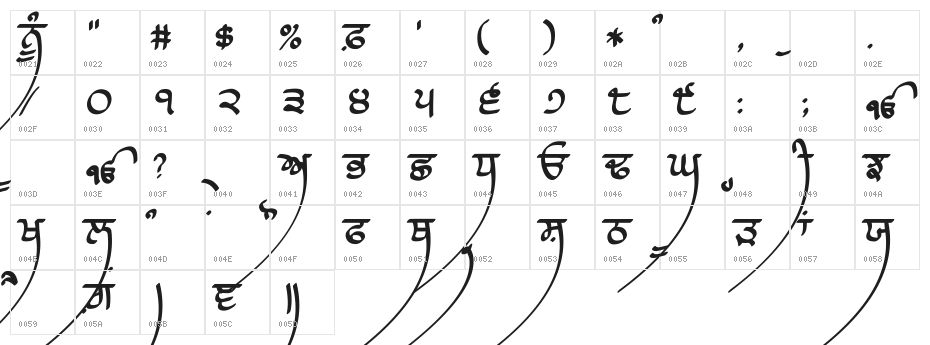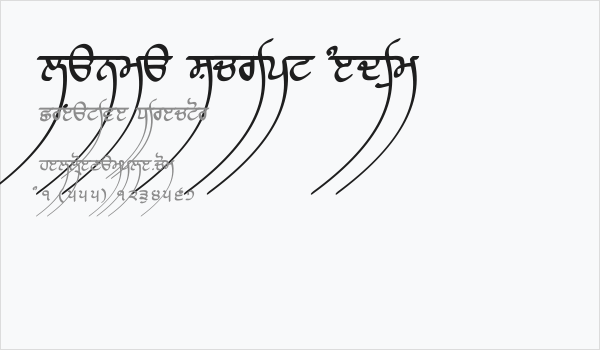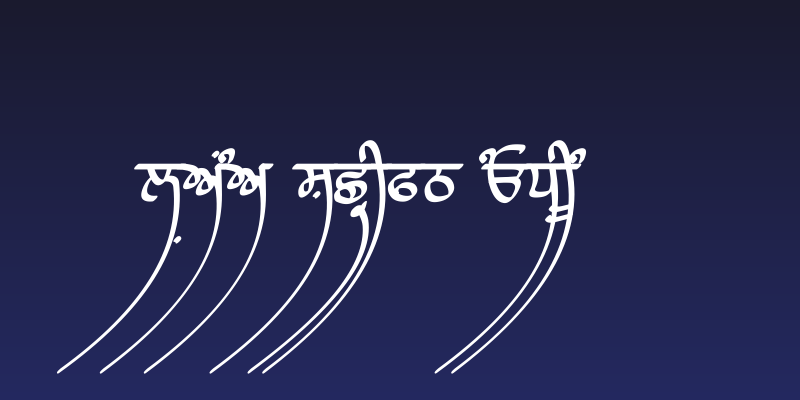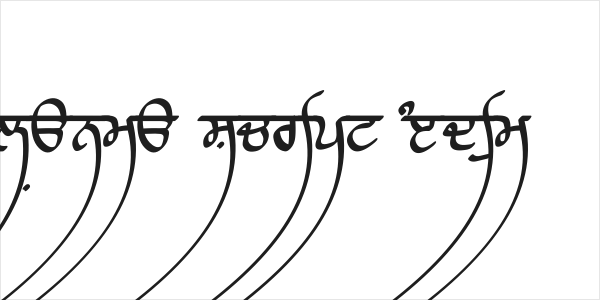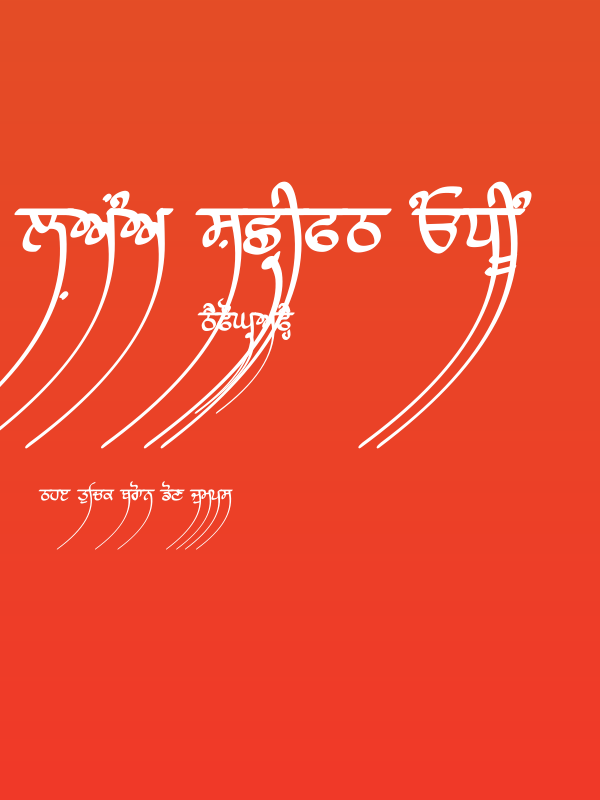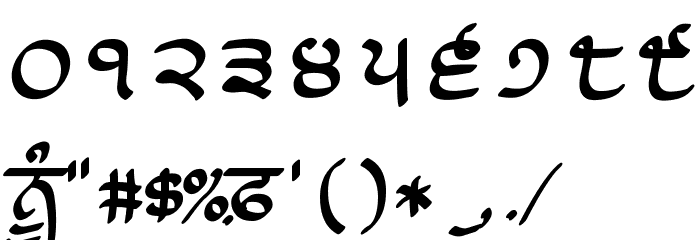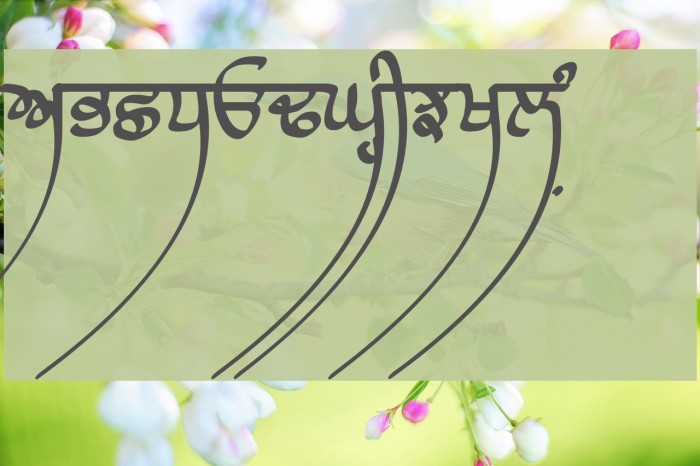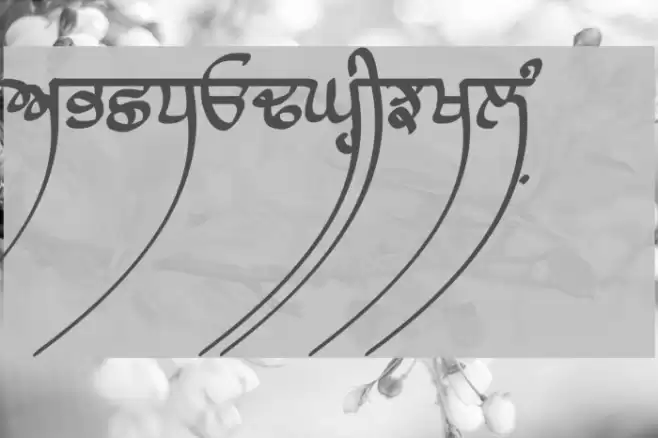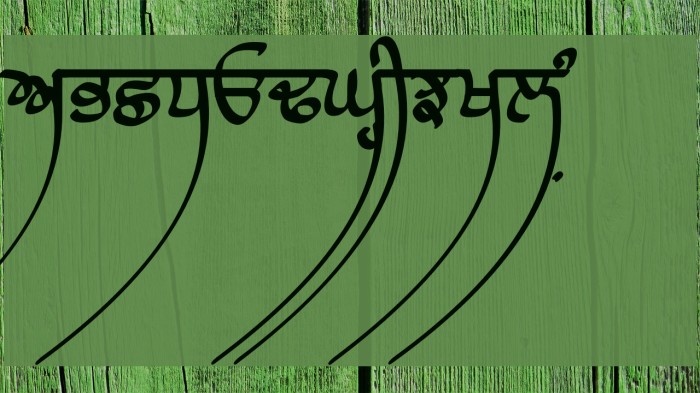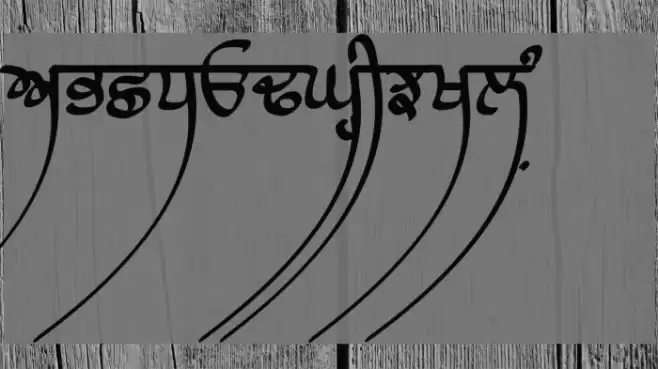
Lanma Script Medium Font
Lanma Script Medium Description
This script font features a flowing, calligraphic style with elegant curves and intricate details. The characters are interconnected, creating a seamless and artistic appearance. The strokes vary in thickness, adding a dynamic and expressive quality to the text. The font has a traditional feel, reminiscent of handwritten scripts, yet maintains a modern touch with its smooth and refined lines. It is suitable for projects that require a personal and artistic flair, such as invitations, greeting cards, and decorative designs. The font's unique style makes it stand out, providing a sophisticated and creative look.
| Use Case | Decorative designs, artistic projects, invitations. |
| Proposed Projects | Ideal for invitations, greeting cards, decorative designs, and artistic projects. |